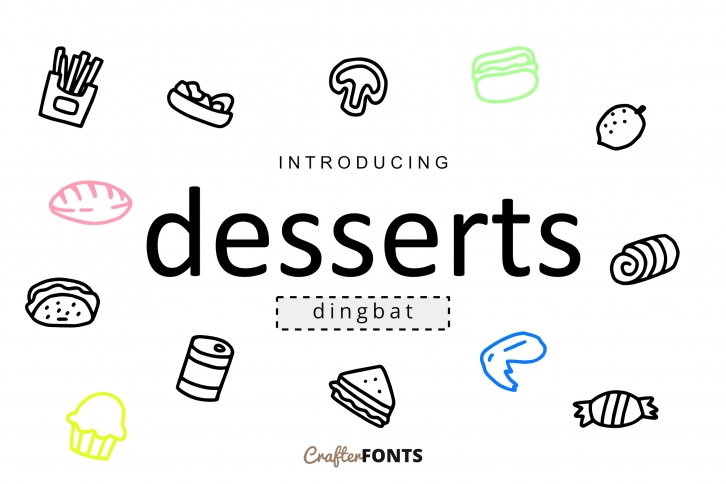
Desserts Doodle Dingbat
Simple desserts doodle dingbats font is suitable for many creative projects such as logos, ornaments, kitchen designs, cooking magazines, and many others.